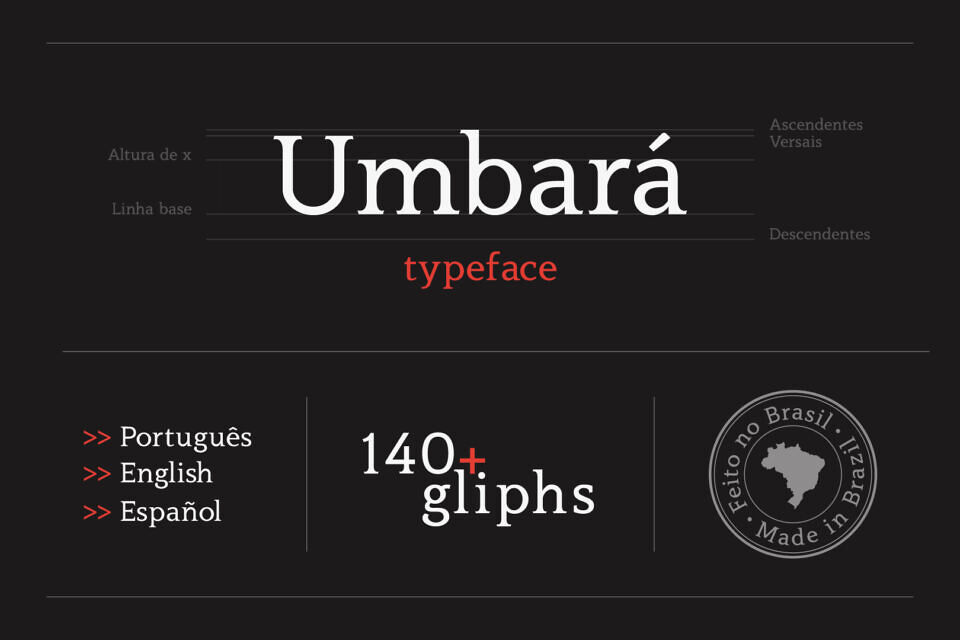
The Umbará Typeface is an original serif reading font, inspired by the old Umbará neighborhood of Curitiba, Brazil. It was conceptualized by Kawany Novak and designed by college student Marcus Nakamura, as part of his cornerstone project in Graphic Design at the Universidade Tecnológica Federal do Paraná.
The font comprises more than 140 glyphs in the basic latin writing system, mainly supporting the Portuguese, English and Spanish languages. It features a set of alternative glyphs for the majority of the uppercase letter, granting a unique personality.